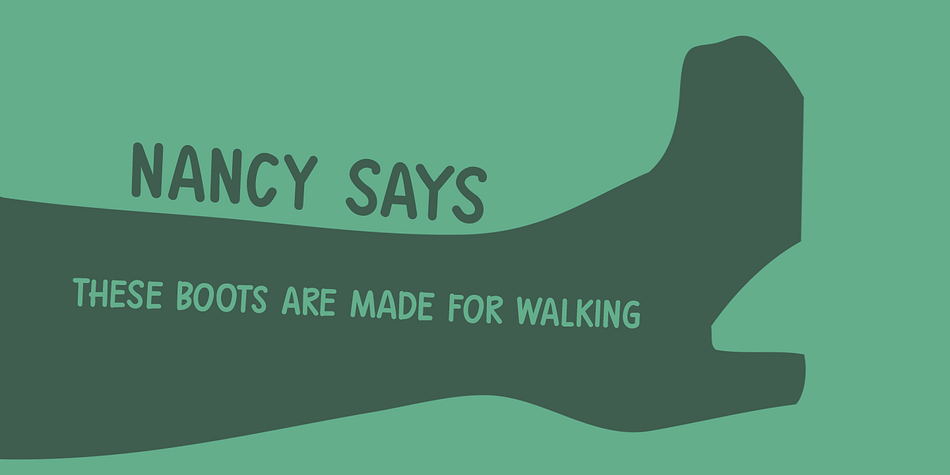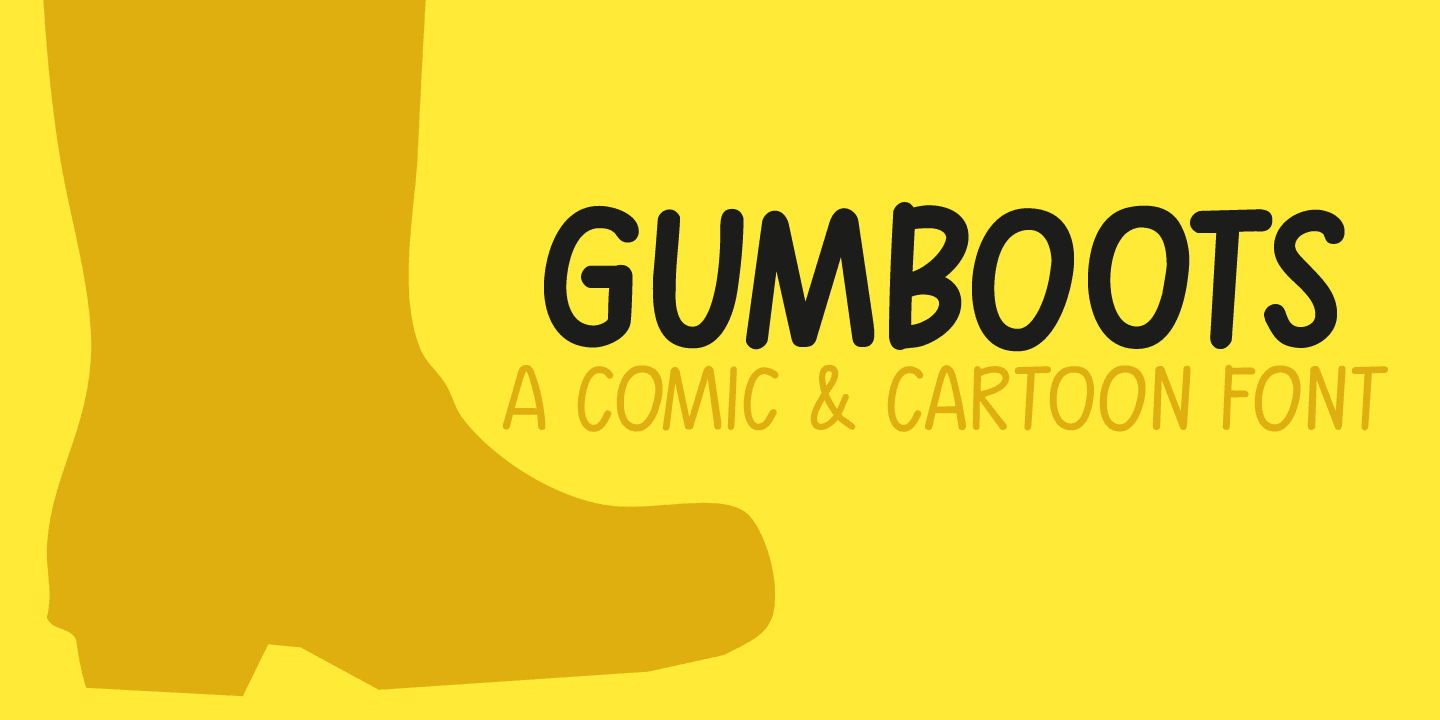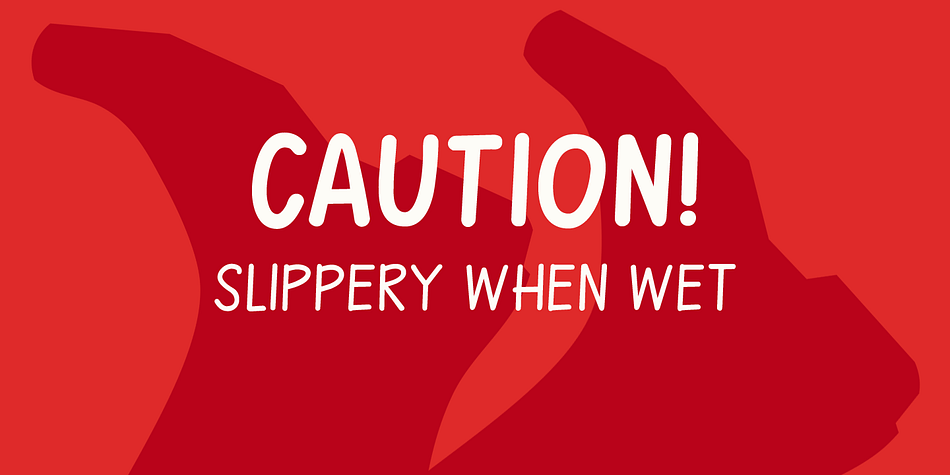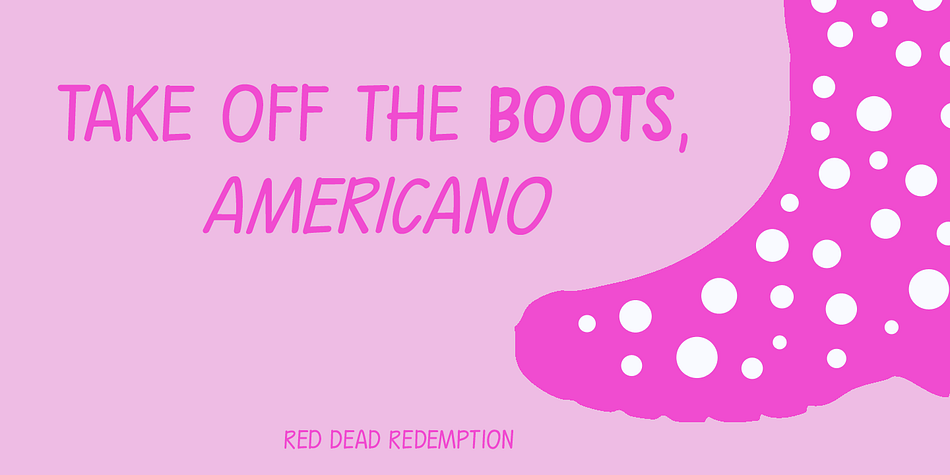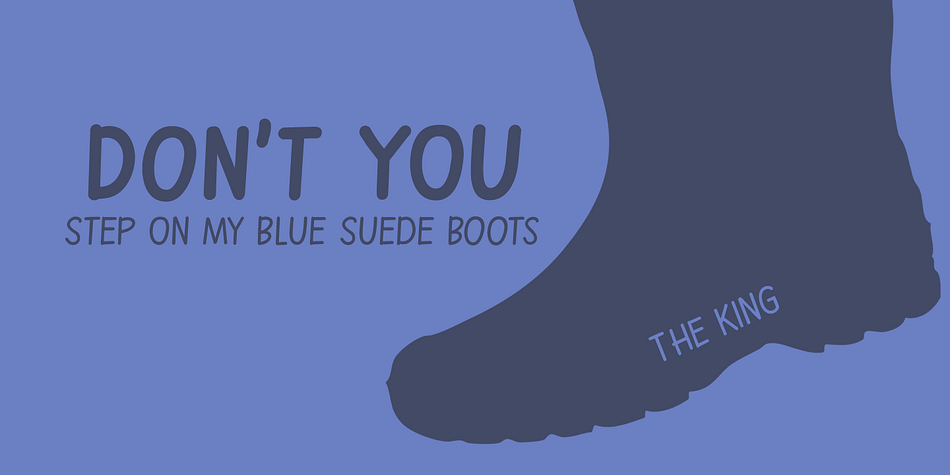
Designed by David Kerkhoff, Gumboots is a comic font family. This typeface has four styles and was published by Hanoded.
I bought a pair of green gumboots (or Wellingtons) the other day. I have a little wilderness outside and it is quite muddy, so I thought a pair of boots would be a good buy.
Gumboots is a handmade comic font. It comes in a regular and a fat style and you can use it for just about anything that needs a bit of comic relief.